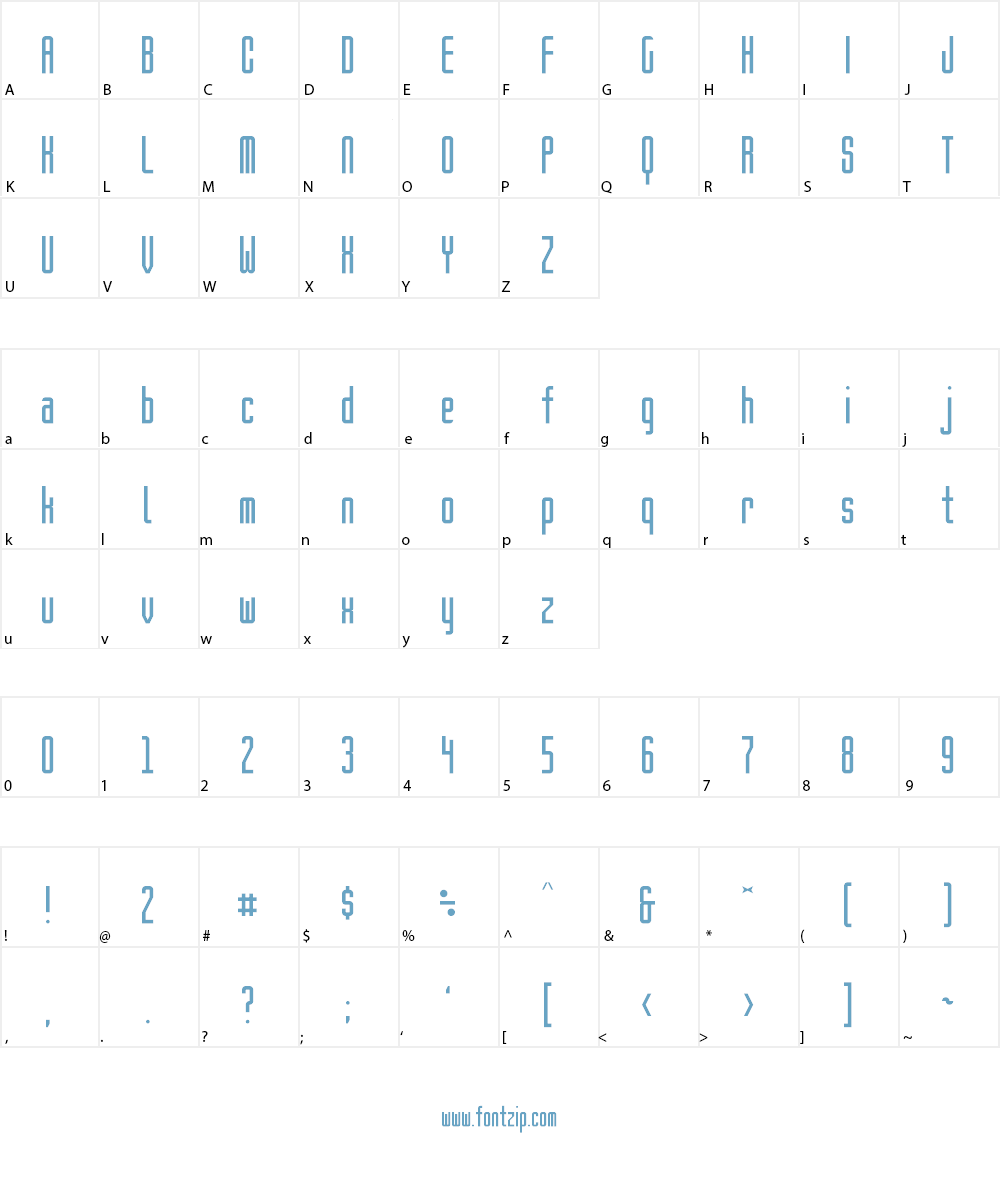
A narrow art-deco style design. Contains some Industria influence.
CHANGES IN VERSION 1.1:
-Added 3 variations
CONTAINS:
-Brighton Sans (formerly "Brighton NBP")
-Brighton Serif
-Brighton Square
-Brighton SmallCaps
NOTICE! This font family will no longer be updated as it has been replaced by BrightonTwo NBP.